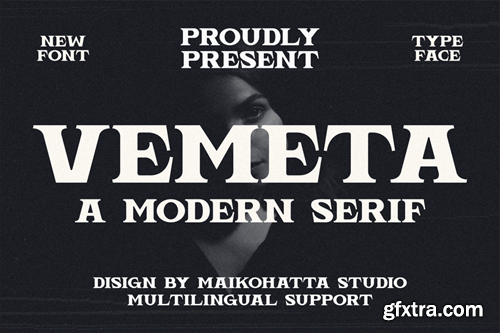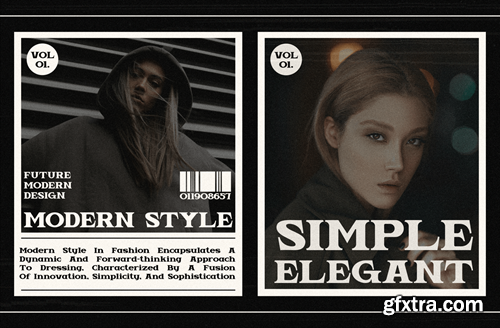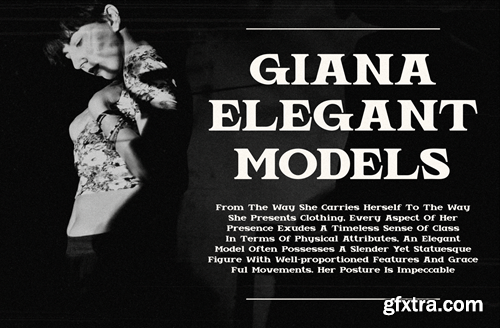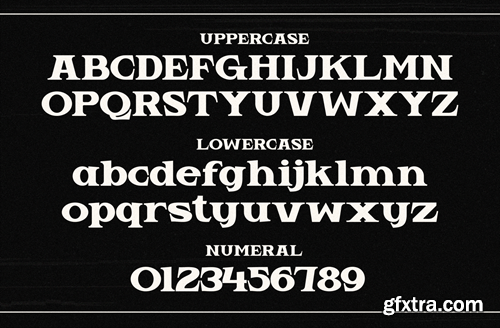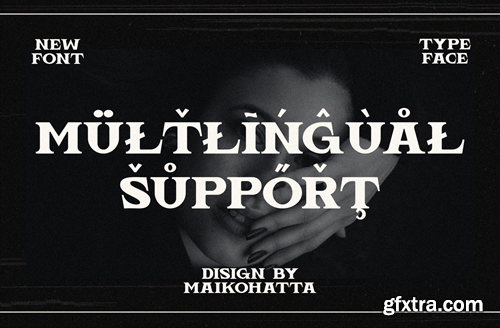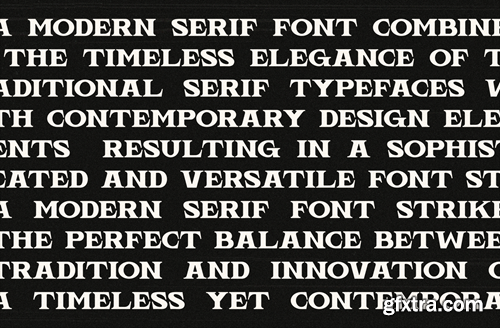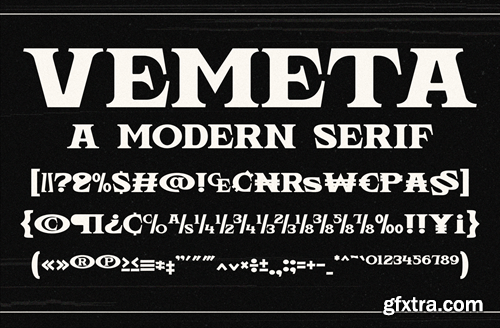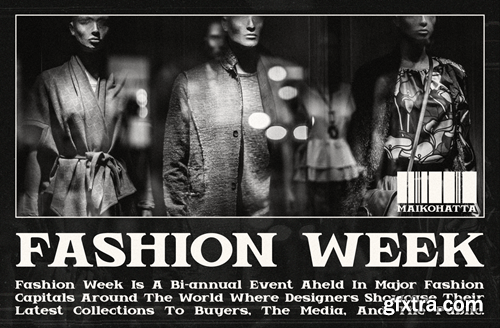
Vemeta - Modern Serif Font
Introducing our new product Vemeta Modern Serif Font This font features a balanced proportion of stroke thickness and fineness, creating attractive and easy-to-read visuals. This modern serif style is often characterized by a bold distinction between thick and thin lines, providing a touch that is understated but still stands out. available